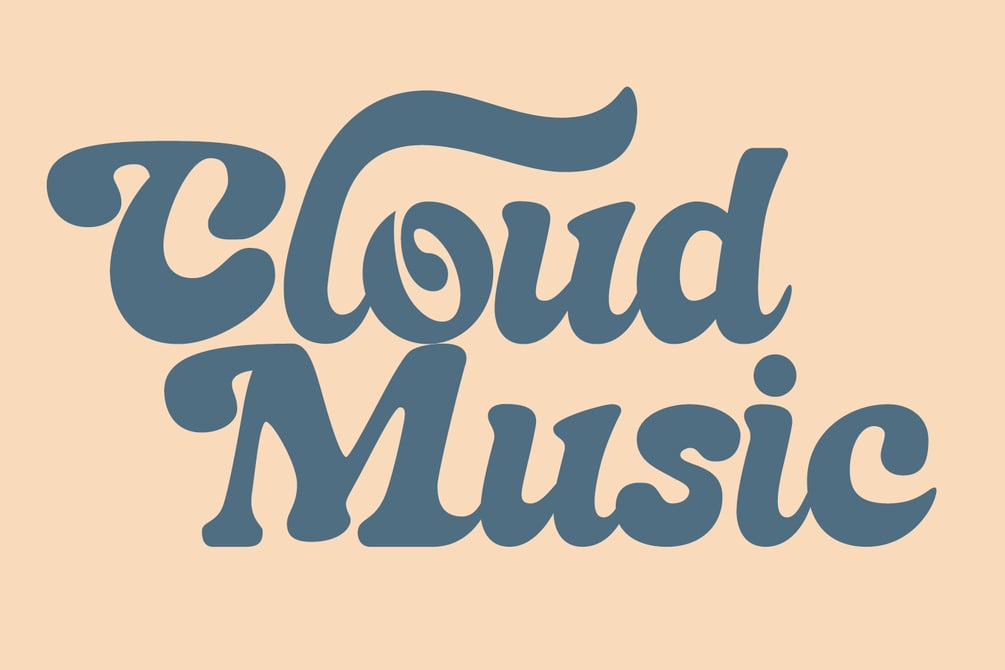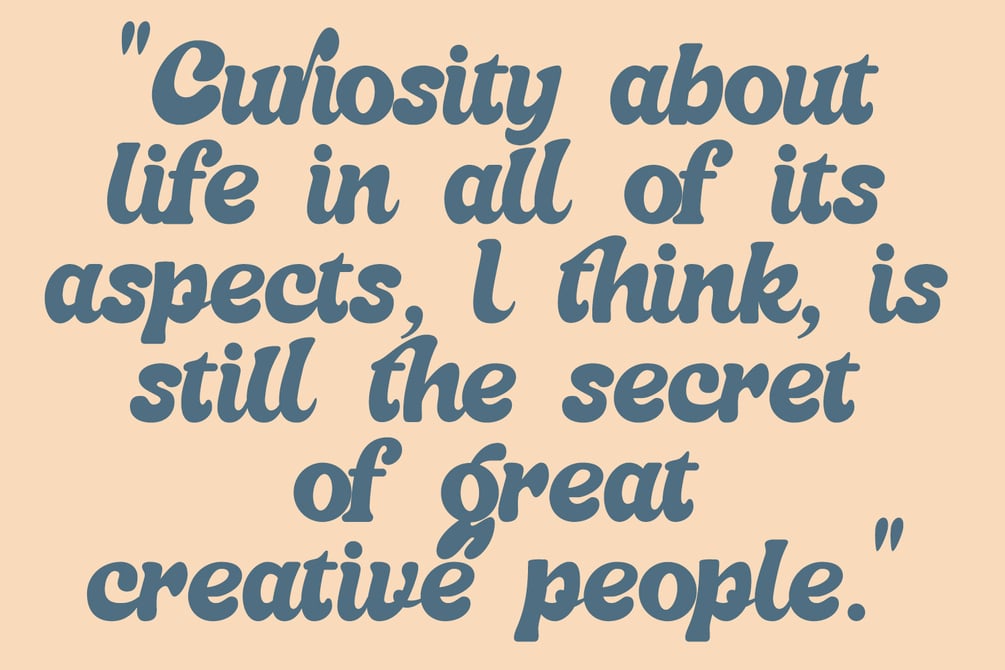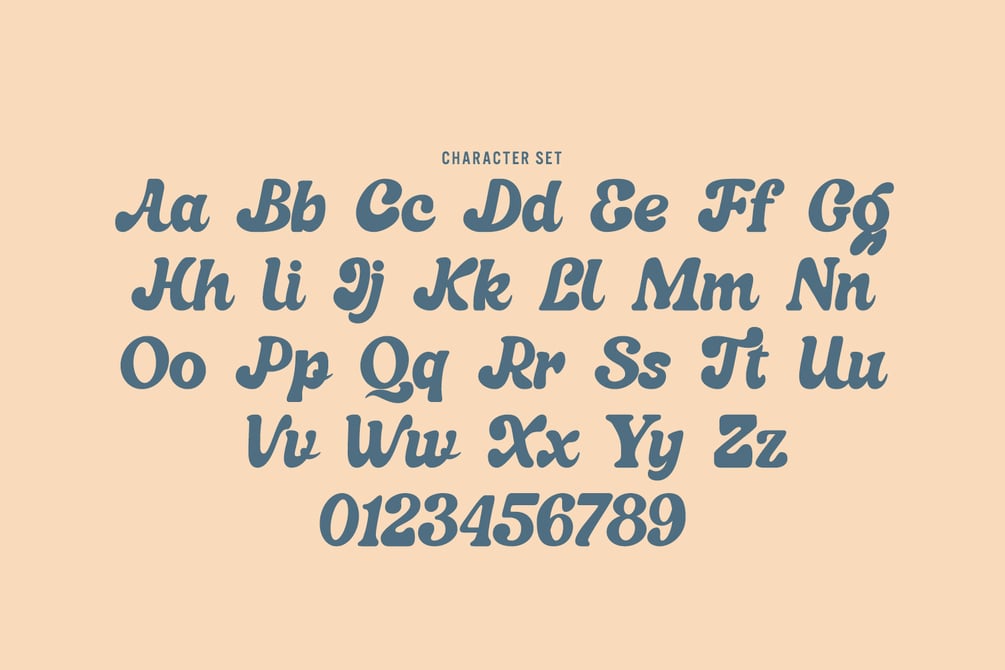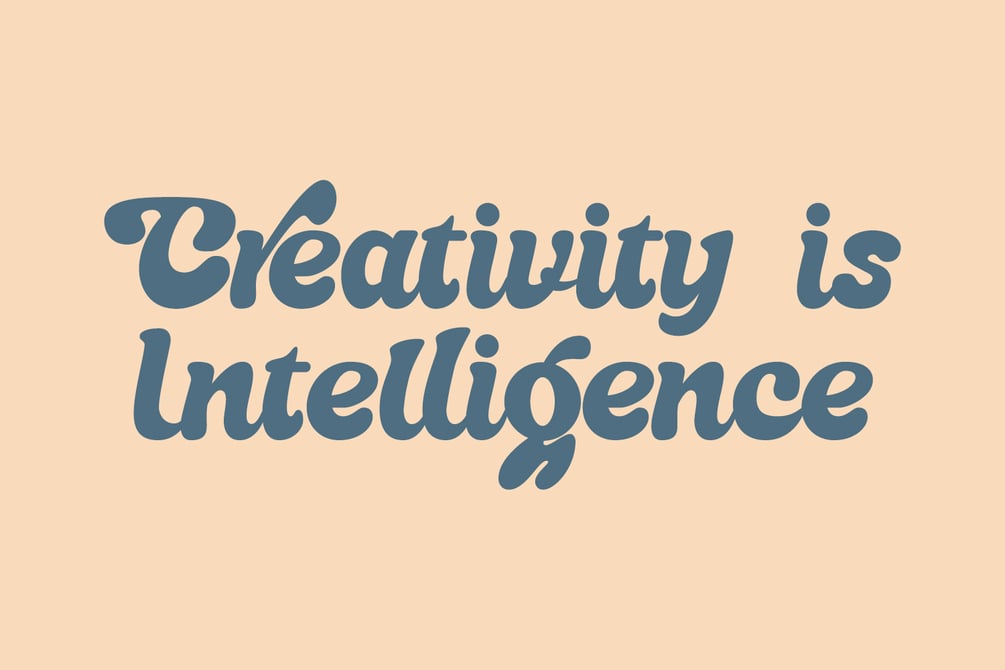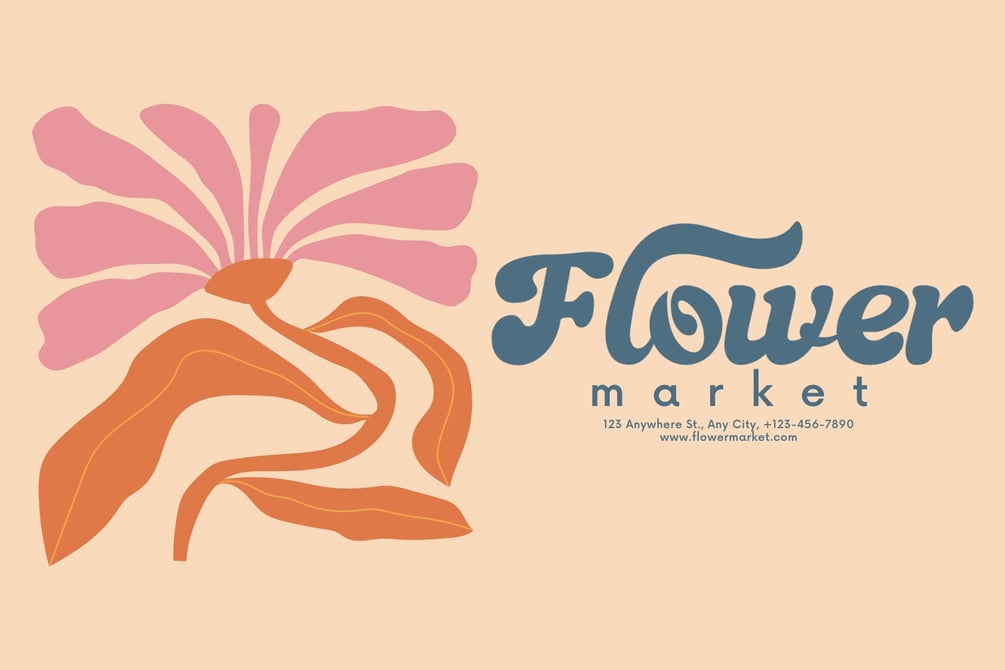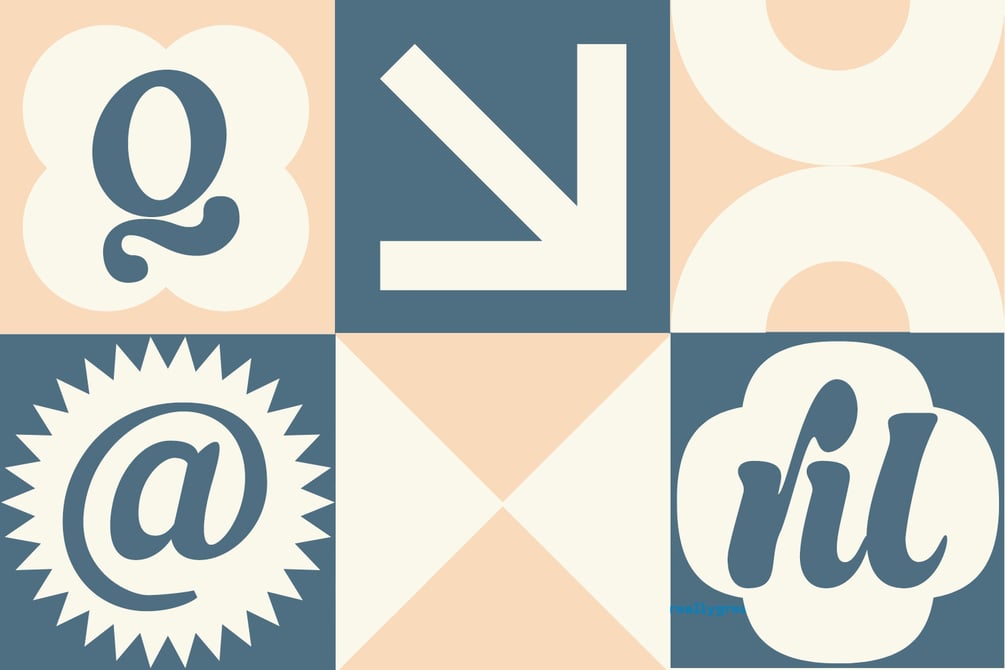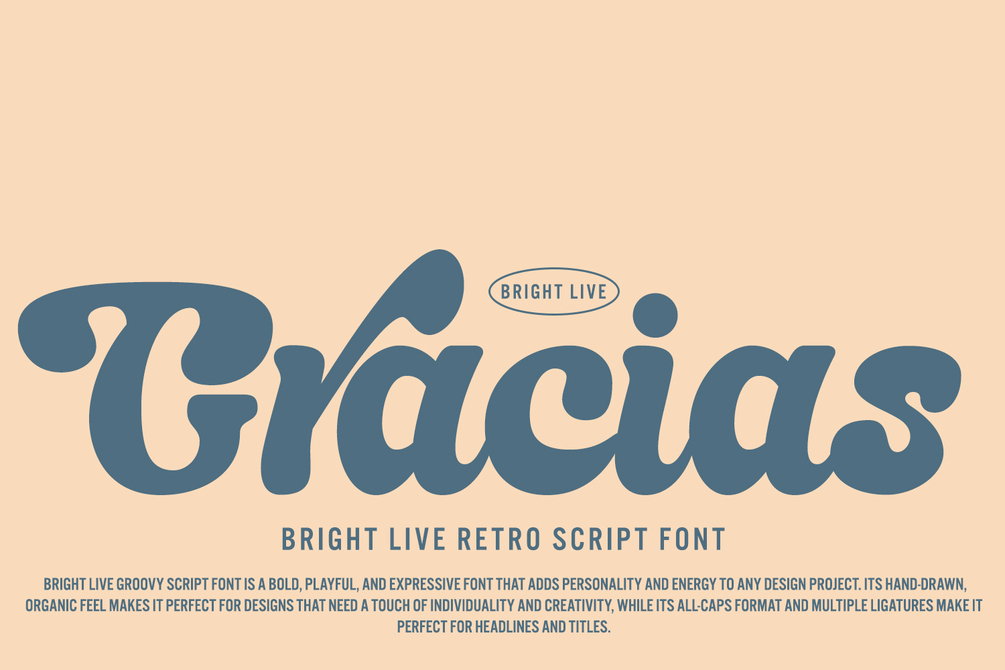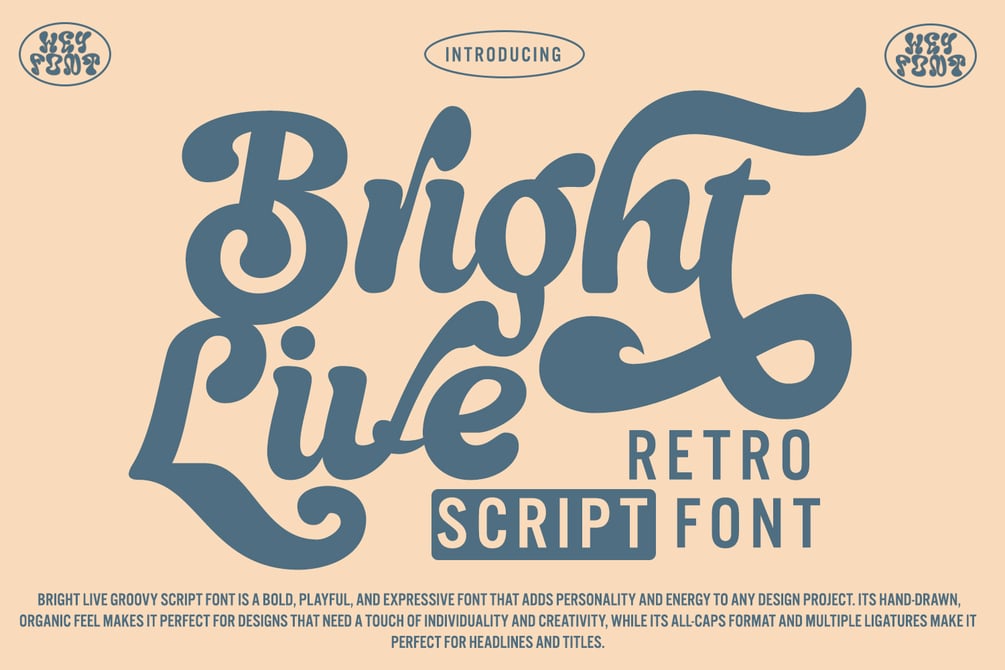
Bright Live - Retro Script Font
Bright Live Retro Script font is a vintage-inspired typeface that is perfect for creating classic design projects. Its elegant and curvy handwritten style makes it ideal for conveying a sense of nostalgia and timeless sophistication. This font is available in both regular and bold weights and includes uppercase and lowercase letters, numbers and punctuation symbols.
Some of its features include:
- Vintage Style: Bright Live Retro Script font captures the essence of the golden age of typography with its retro-style design. It is perfect for creating vintage posters, product packaging, branding, and more.
- Handwritten Appearance: The font has a unique and playful handwritten appearance, with smooth curves and a natural flow. It captures the essence of calligraphy and is perfect for conveying a sense of personal touch.
- Bold and Regular Weights: Bright Live font is available in both bold and regular weights, giving designers flexibility to mix and match them to achieve a wide range of styles.
- Uppercase and Lowercase Letters: The font includes both uppercase and lowercase letters, making it easy to create a variety of typographic combinations for your designs.
- Punctuation Symbols and Numbers: Bright Live font also includes a range of punctuation symbols and numbers, making it a versatile typeface for a wide range of projects.
- Multilingual Support: The font supports multiple languages, including English, French, German, Portuguese, Spanish and more.
Overall, Bright Live font is a perfect choice for designers who want to create a vintage feel in their design projects. Its handwritten style, bold and regular weights, and range of symbols and numbers make it a versatile and reliable font for any design project.